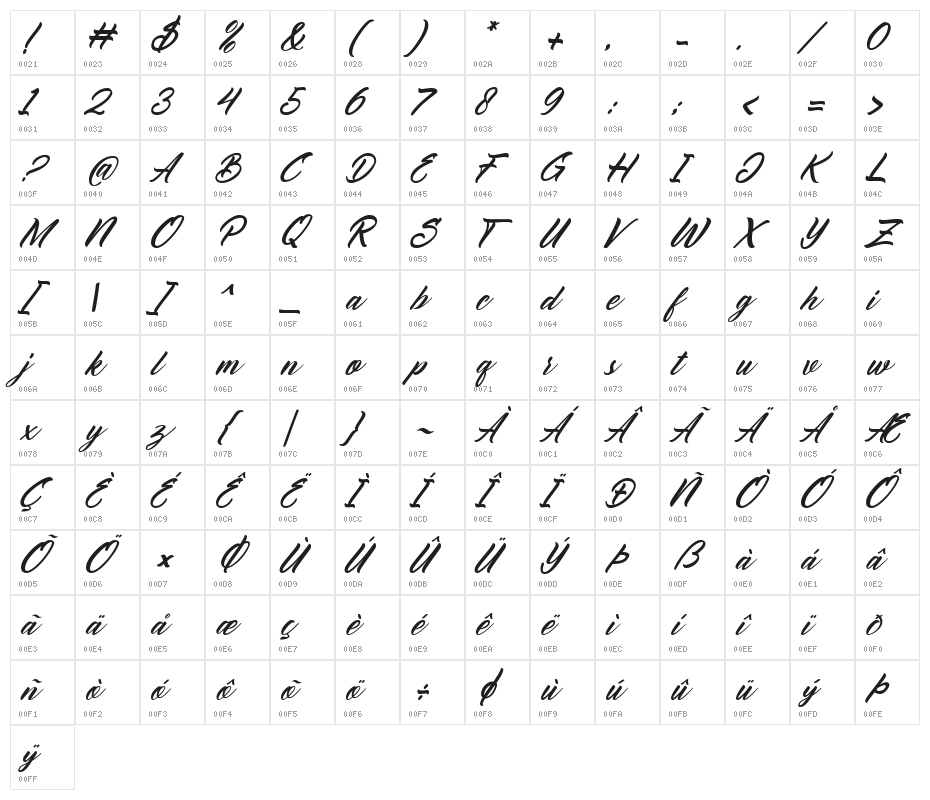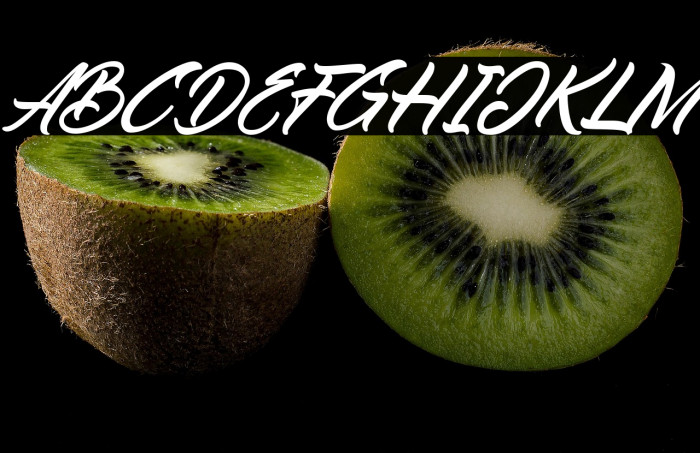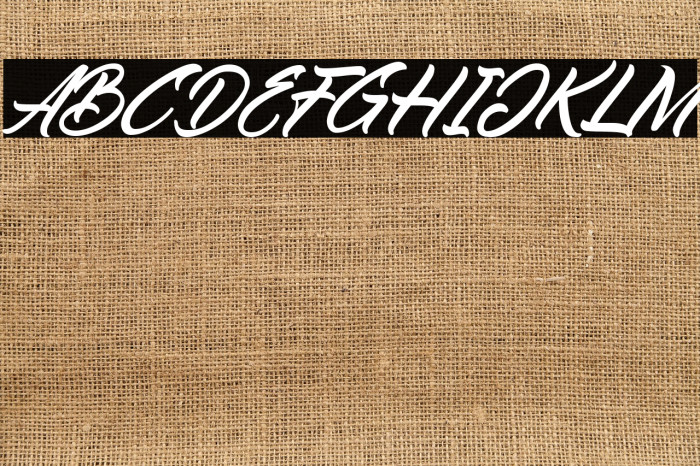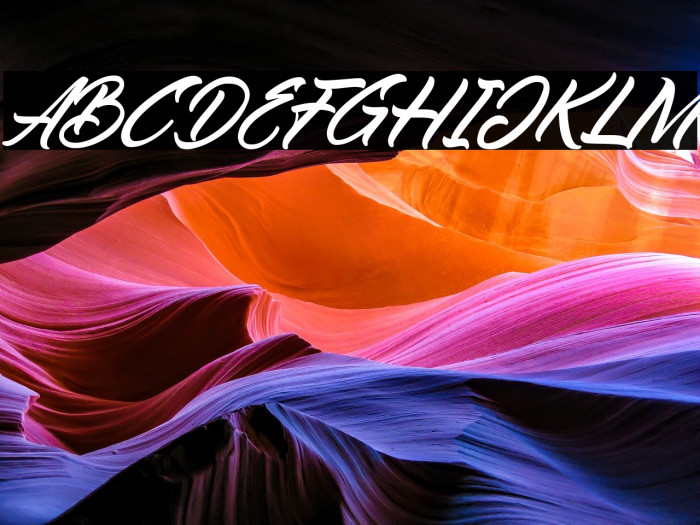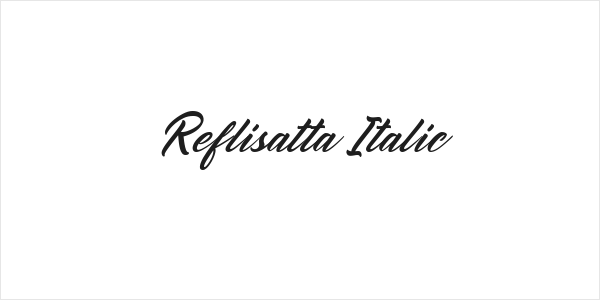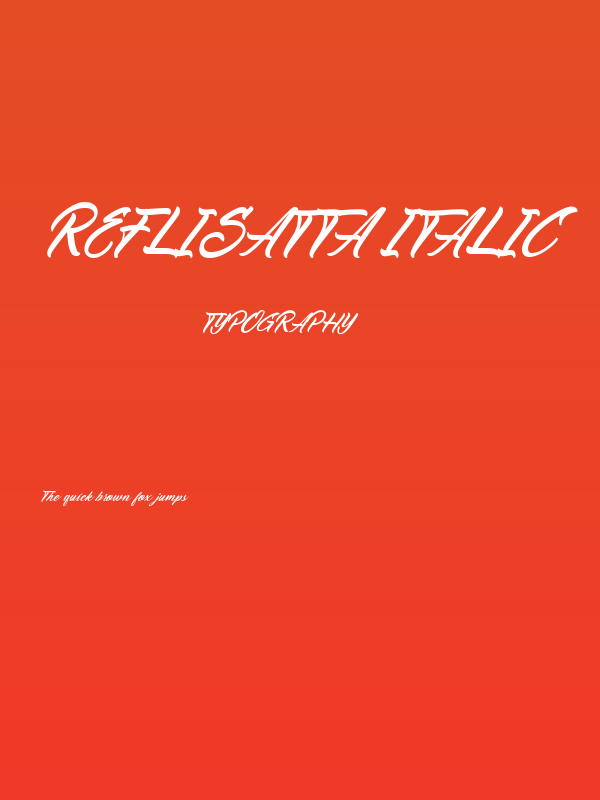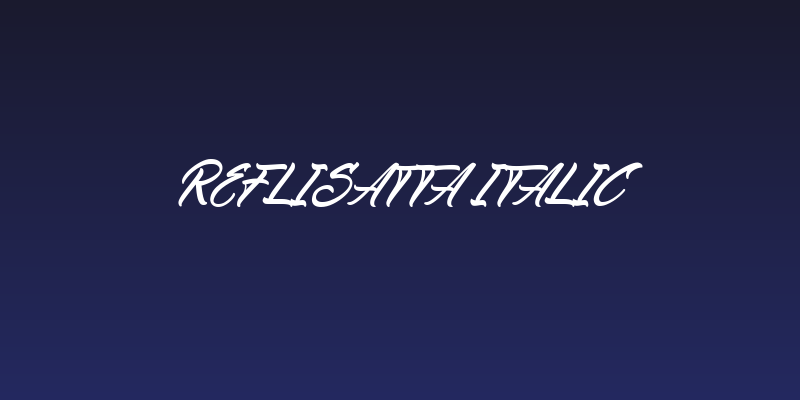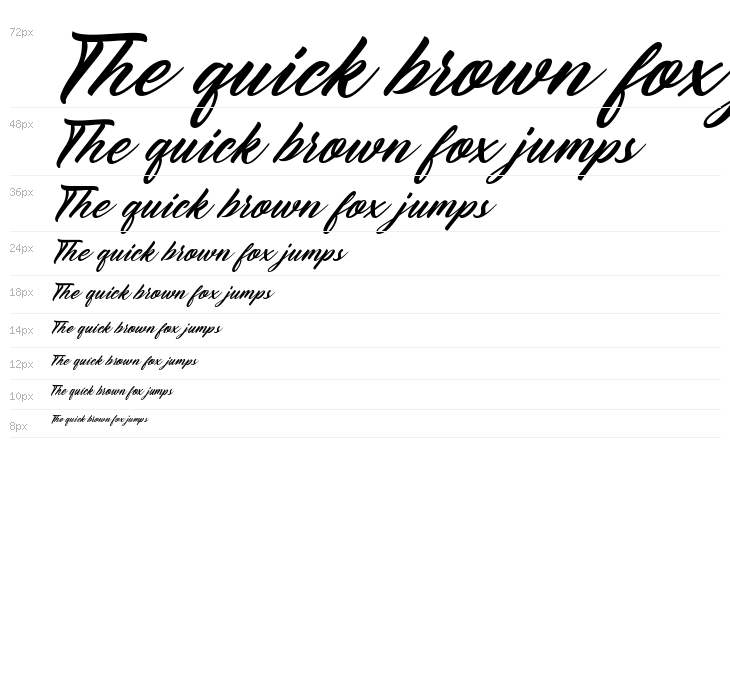
Reflisatta Italic Font
Reflisatta Italic Description
This font exudes a dynamic and fluid style, characterized by its cursive, handwritten appearance. The letters are connected, creating a seamless flow that mimics natural handwriting. The strokes are bold and expressive, with a slight slant that enhances its italic nature. The uppercase letters are elegantly crafted, with sweeping curves and flourishes that add a touch of sophistication. The lowercase letters maintain a consistent style, with rounded forms and smooth transitions. The numerals are equally stylized, complementing the overall aesthetic. Special characters are thoughtfully integrated, maintaining the font's cohesive look.